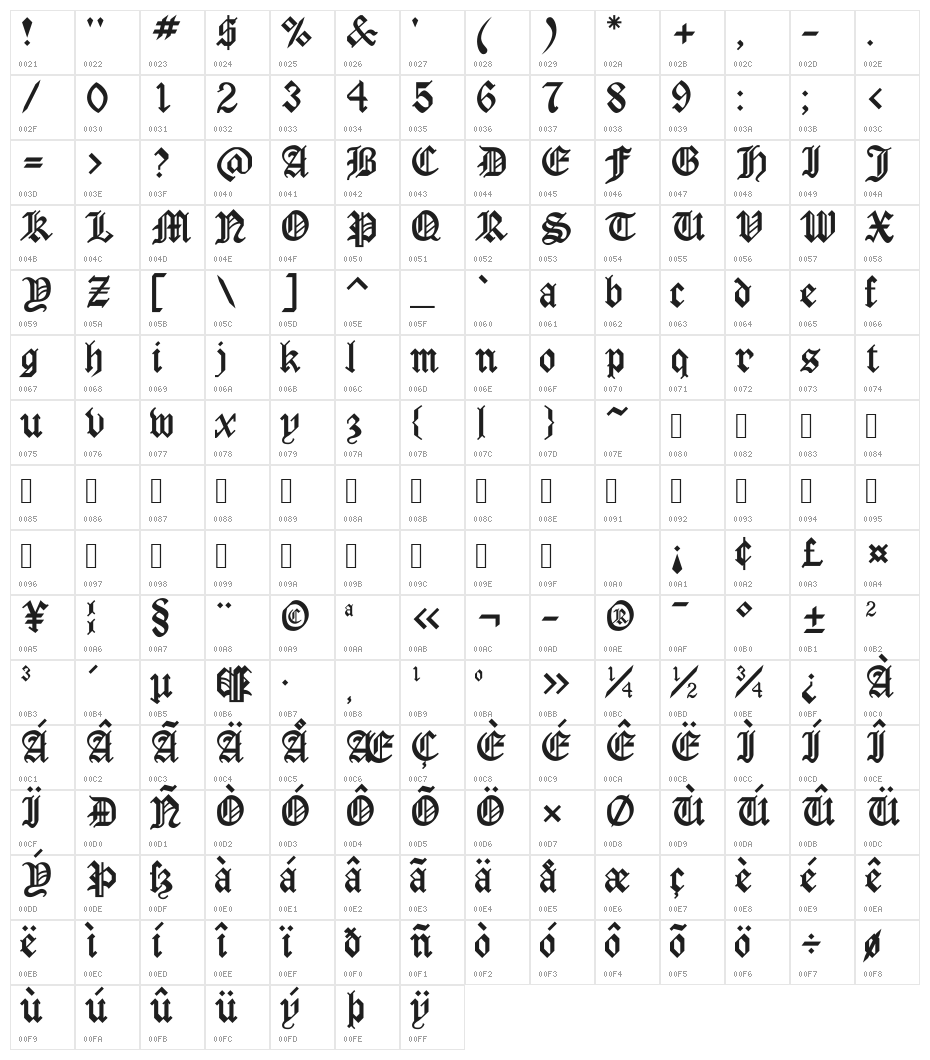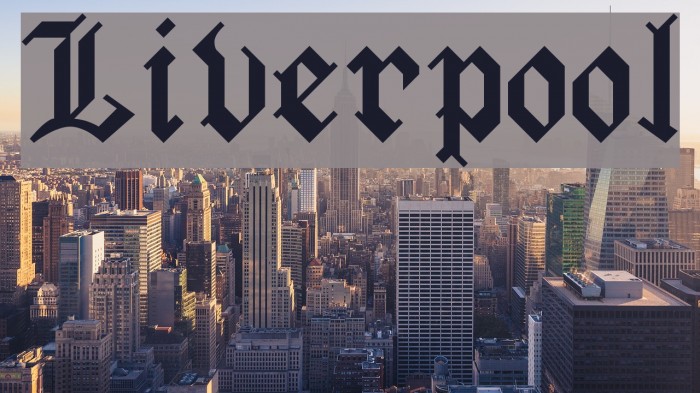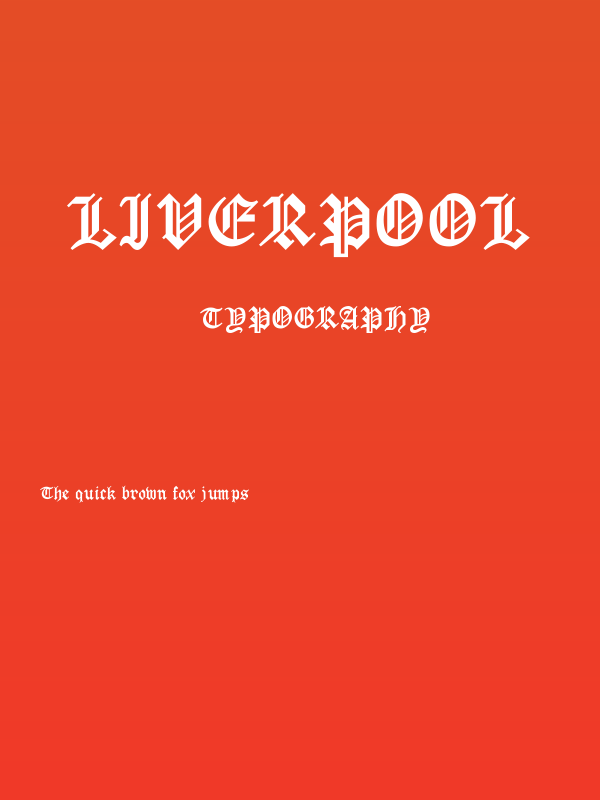
Liverpool Font
Liverpool Description
This font features a classic blackletter style, characterized by its ornate and intricate design. The uppercase letters are bold and angular, with sharp serifs and a distinct medieval flair. The lowercase letters maintain the same decorative quality, with a slightly more condensed form. Numbers and special characters are equally stylized, maintaining the overall gothic aesthetic. The font's dramatic appearance makes it ideal for projects that require a historical or traditional feel, such as invitations, certificates, or branding for vintage-themed products.
Proposed ProjectsIdeal for historical documents, vintage branding, invitations, and certificates.